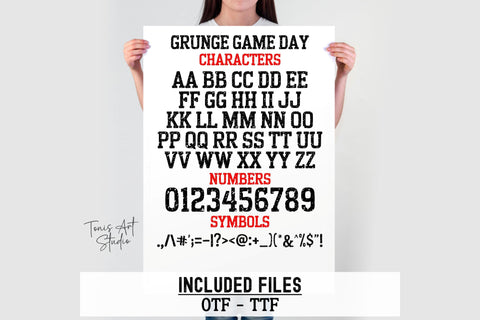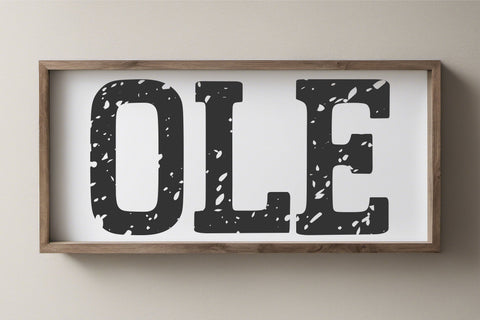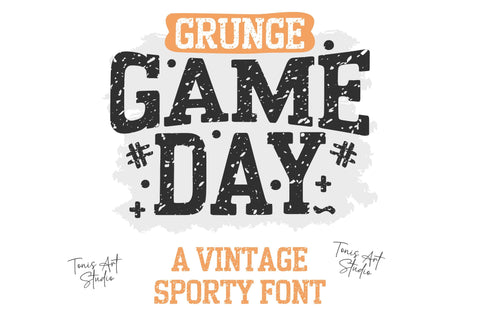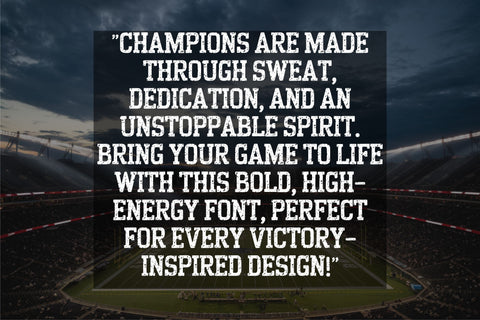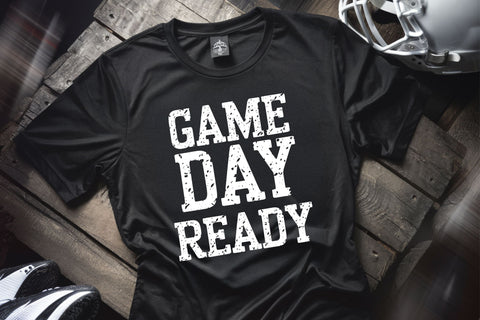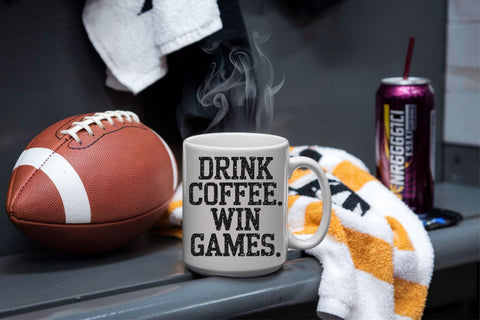
Game Day Font – Varsity Distressed Sports Font for T-Shirts
Game Day Font is a bold, varsity-style distressed typeface perfect for sports branding, jerseys, t-shirts, gym apparel, and Cricut projects. Its grunge athletic design is ideal for football, baseball, basketball, and sublimation designs.
✔ Game Day Font – Bold, grunge varsity-style typeface
✔ Full Alphabet (A-Z), Numbers, and Symbols
✔ Ideal for jerseys, t-shirts, banners, and sports branding
🏆 Perfect For:
🏀 Sports Logos & Jerseys
⚾ Athletic Team Branding
🎽 Vintage & Collegiate Designs
💪 Gym & Motivational Apparel
🎨 Sublimation & Cricut Projects
📣 Social Media Graphics & Posters